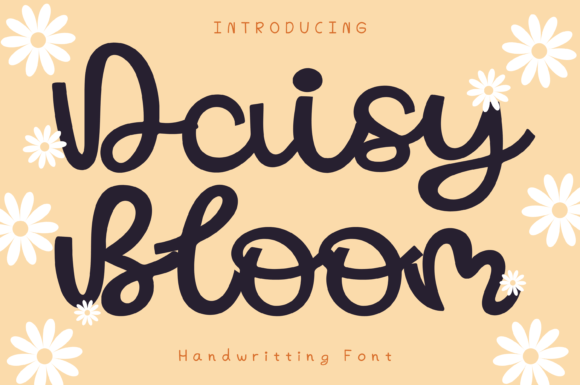
Introducing Daisy Bloom Font, the perfect blend of whimsy and elegance! Created by AchiArt, this script font is designed to captivate and inspire. With its clean and handwritten style, Daisy Bloom Font adds a touch of charm to any project, making it the ideal choice for all your creative endeavors.
Are you in search of the Best Font For Handwriting? Look no further! Daisy Bloom Font is here to bring your words to life with its unique and enchanting appeal. Whether you're designing invitations, crafting beautiful logos, or creating stunning social media posts, this font will elevate your work to new heights.
Let your imagination run wild as you explore the endless possibilities with Daisy Bloom Font. Its versatility knows no bounds, making it suitable for a wide range of projects. From wedding stationery to branding materials, this font effortlessly adapts to any style or theme, adding a touch of elegance and sophistication.
With Daisy Bloom Font, your creations will effortlessly stand out from the crowd. Its flowing lines and delicate strokes evoke a sense of grace and beauty, leaving a lasting impression on anyone who lays eyes on your designs. Let your words dance across the page with this captivating font, turning ordinary text into a work of art.
But Daisy Bloom Font is more than just a pretty face. It's also incredibly user-friendly, ensuring that both beginners and experienced designers can enjoy its benefits. Its seamless legibility ensures that your message is delivered with clarity and style, captivating your audience and leaving them wanting more.
In addition to its aesthetic appeal, Daisy Bloom Font is also optimized for digital platforms. Whether you're designing for websites, blogs, or social media, this font will shine on any screen, ensuring that your message is beautifully displayed across all devices.